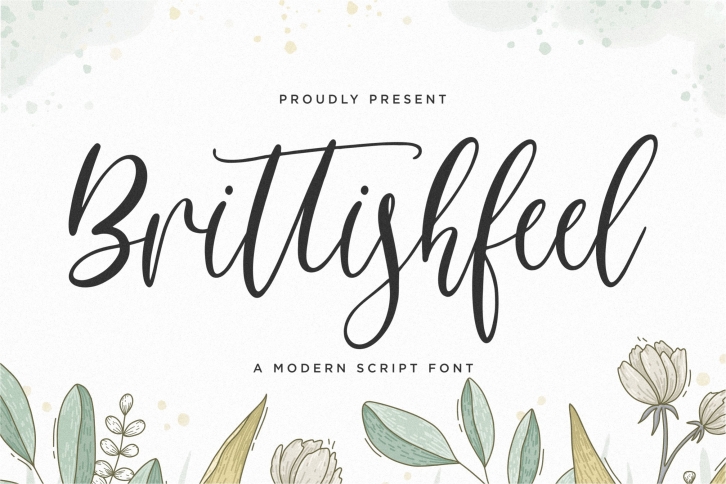
Brittishfeel is a gorgeous font that was realeased on August 24, 2022. The font can be used in many style contexts and design environments. Perfect for invitations, magazines, websites, logos, and more! It was designed by Qwrtype Foundry and the file size is 19.11 MB. Thanks for checking out this font!